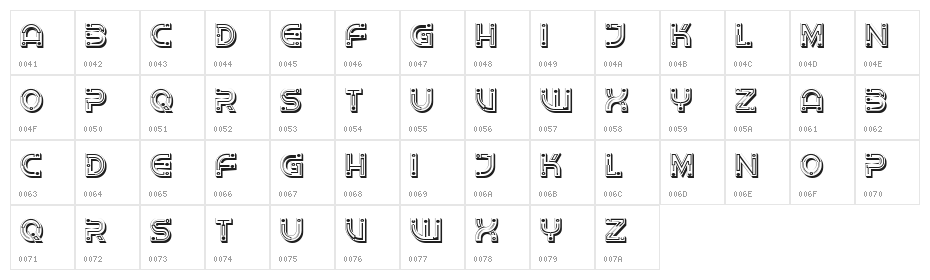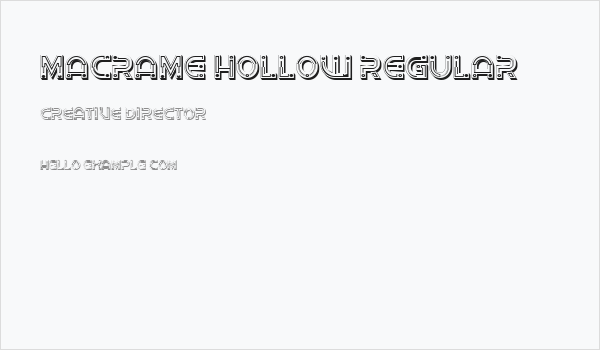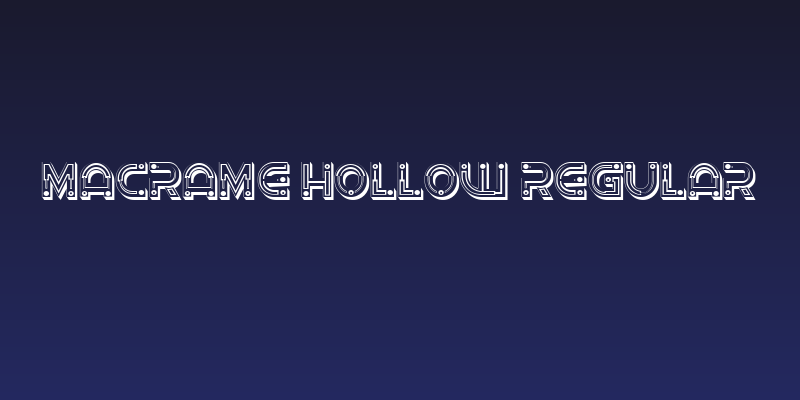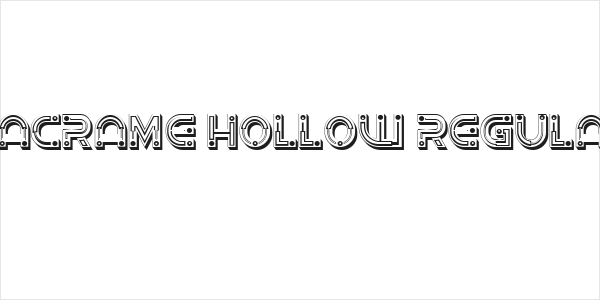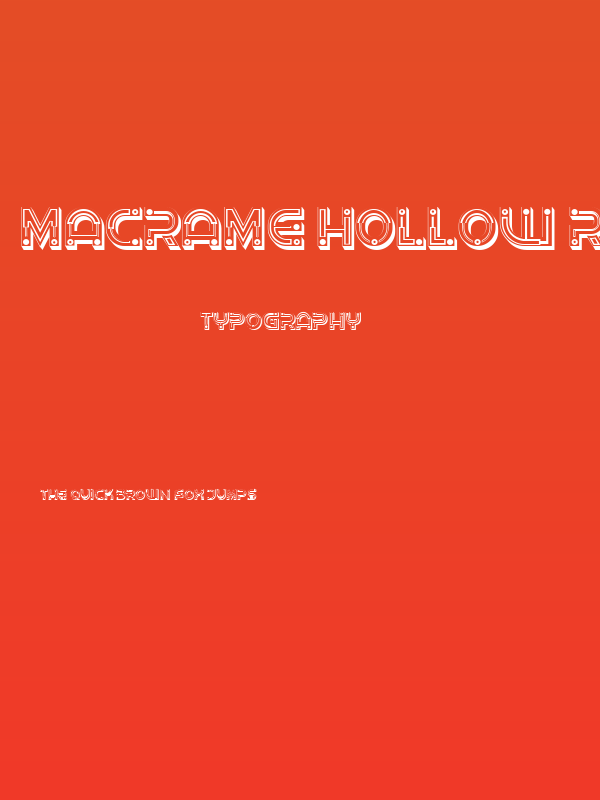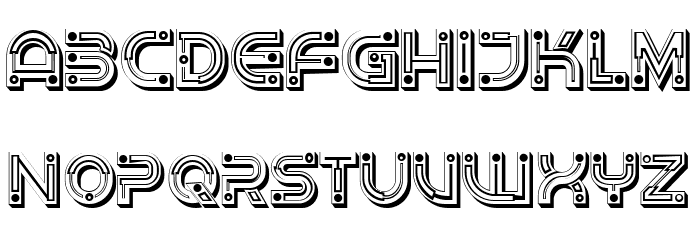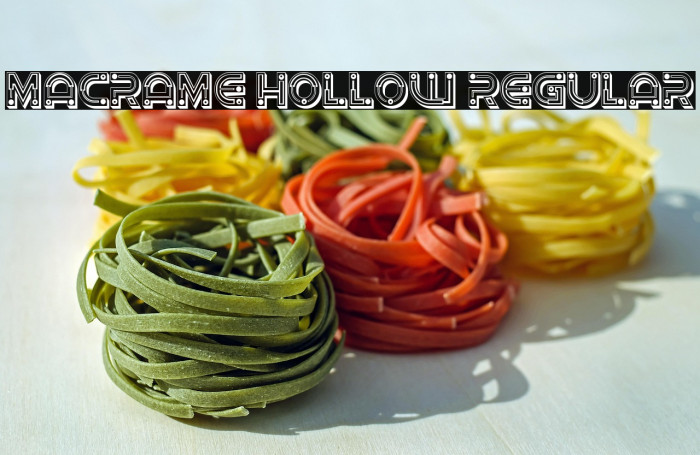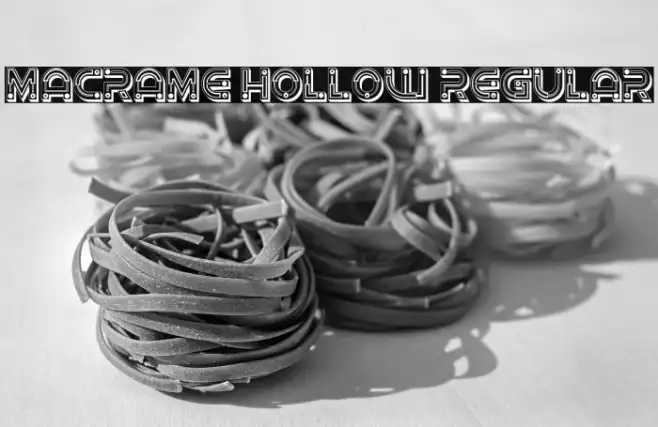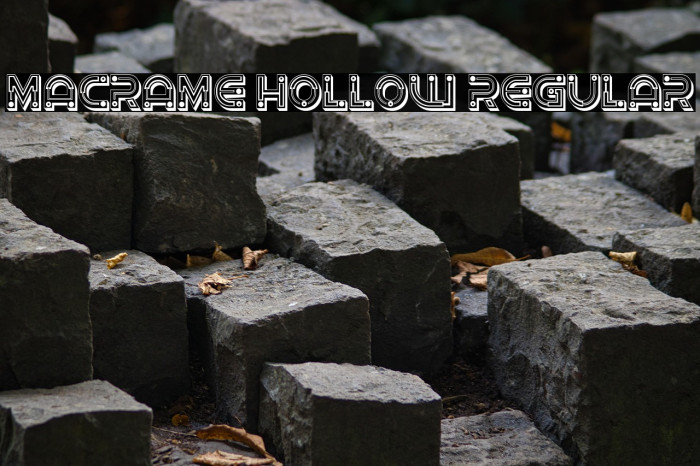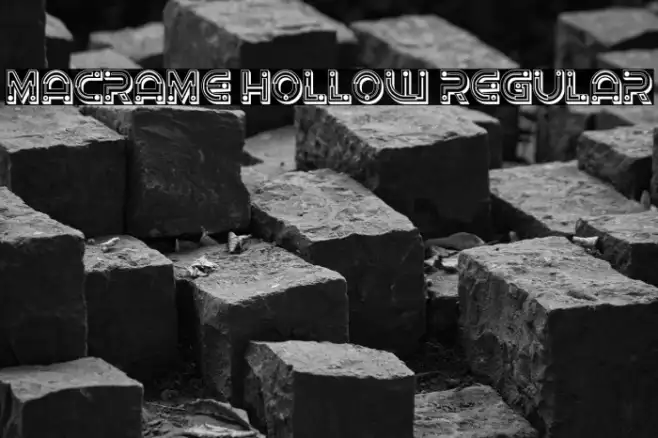
Macrame Hollow Regular Font
Macrame Hollow Regular Description
This font features a unique hollow design with a geometric and mechanical aesthetic. Each character is outlined with a double line, creating a sense of depth and intricacy. The letters are adorned with small circular and rectangular cutouts, adding to the industrial feel. The overall look is bold and eye-catching, making it suitable for projects that require a modern and edgy appearance. The uppercase letters are consistent in height, while the lowercase letters maintain a similar style, ensuring uniformity across the typeface. The numbers and special characters follow the same design principles, making them cohesive with the alphabetic characters.
| Proposed Projects | Ideal for branding, posters, and modern digital designs that require a distinctive and bold typeface. |